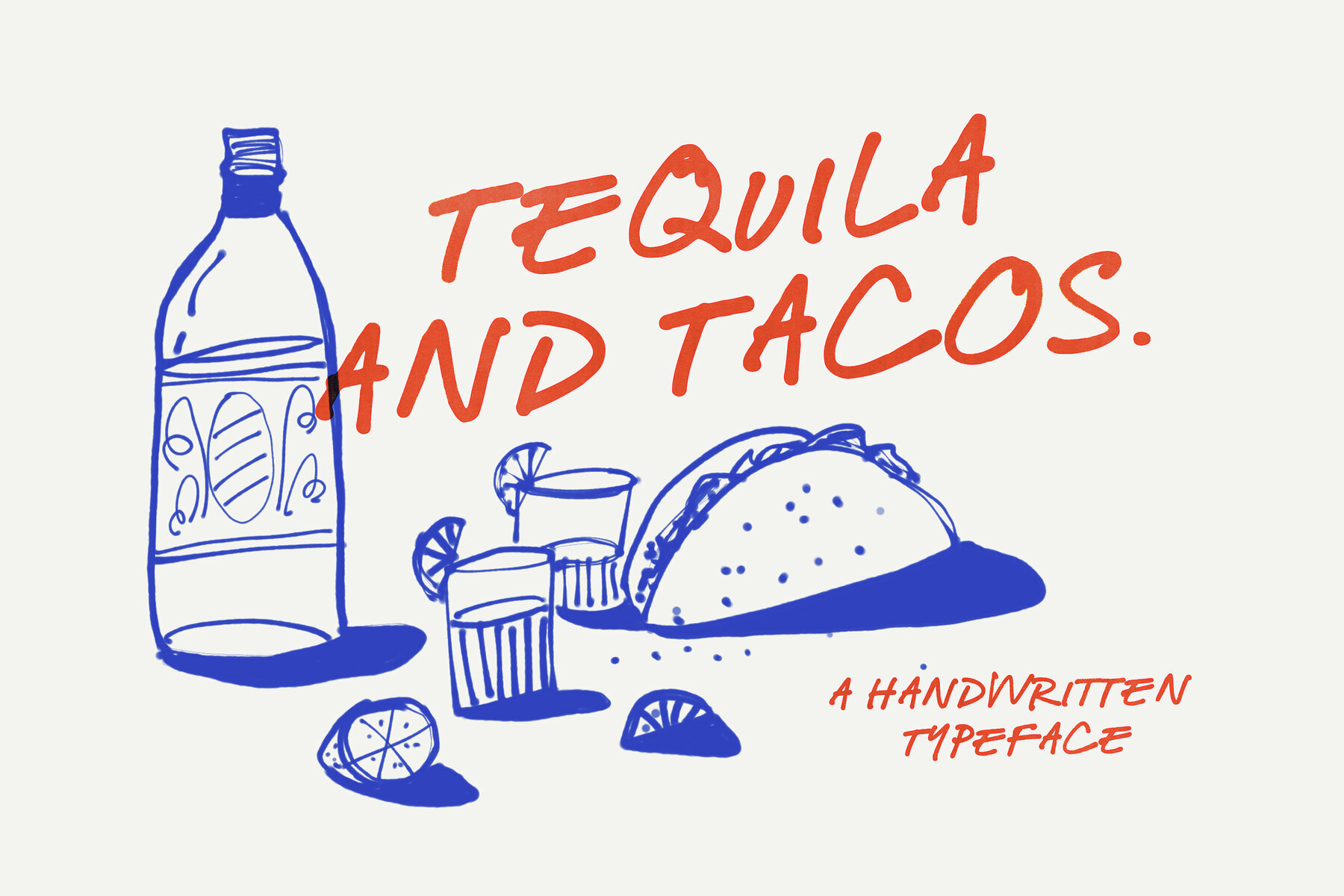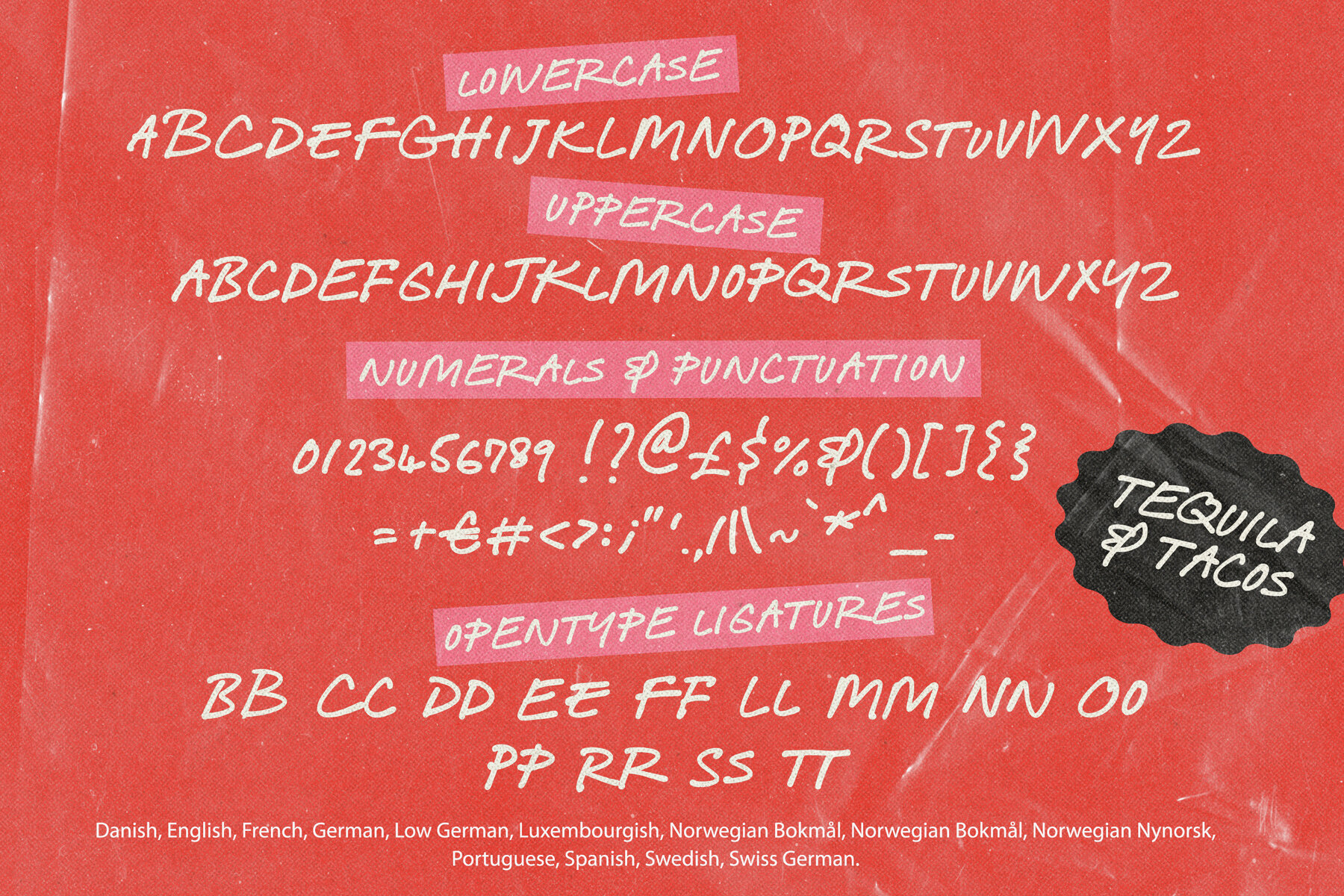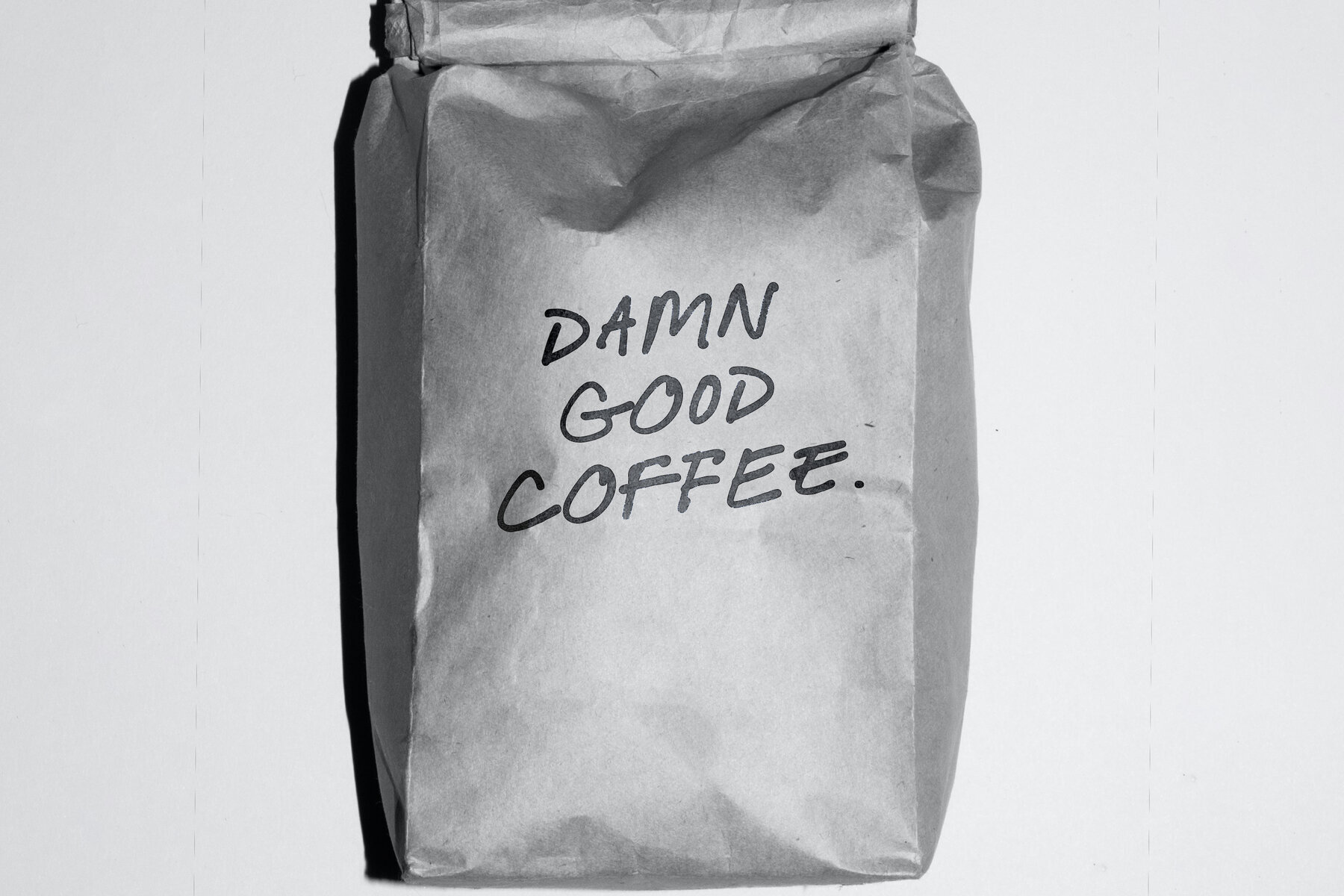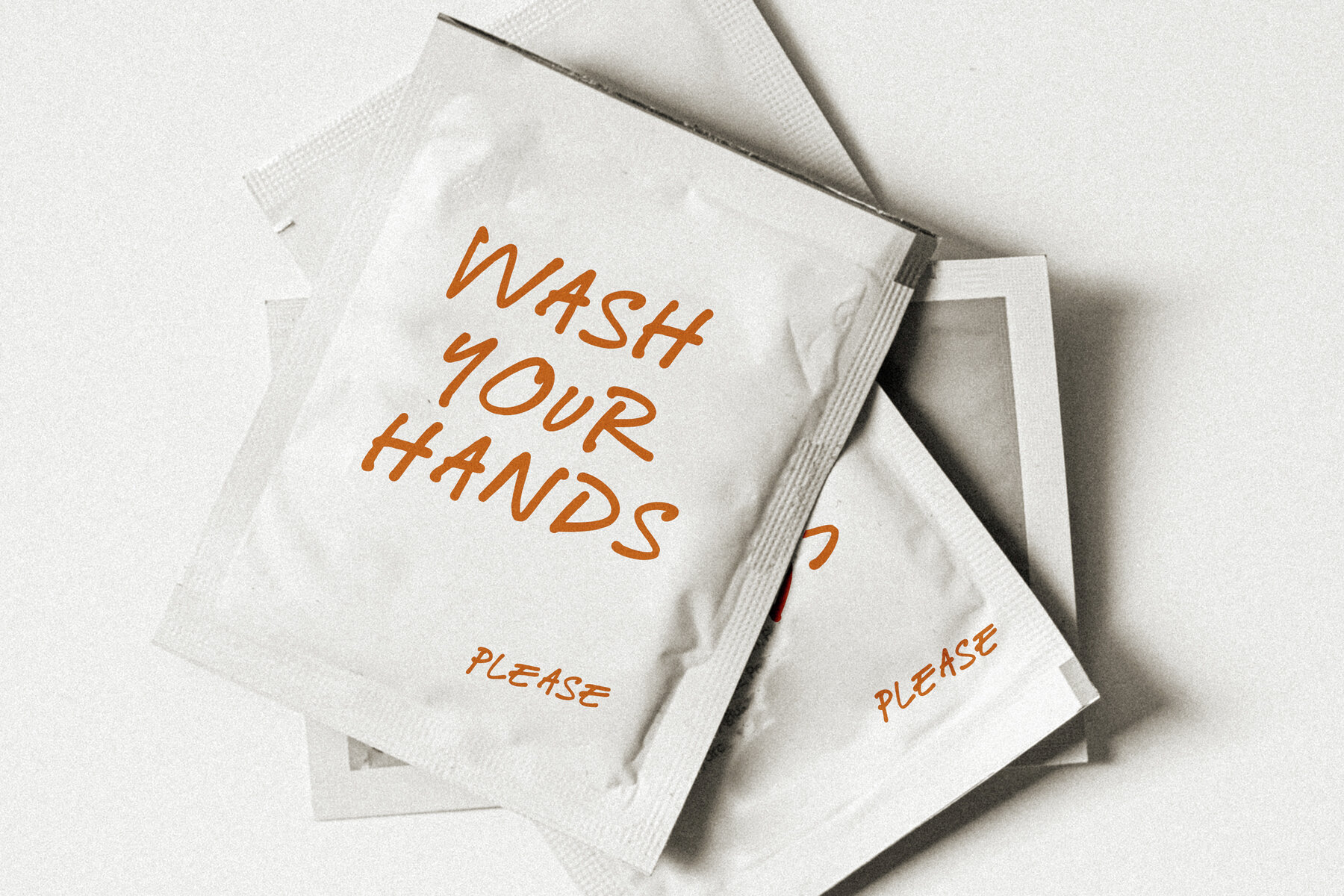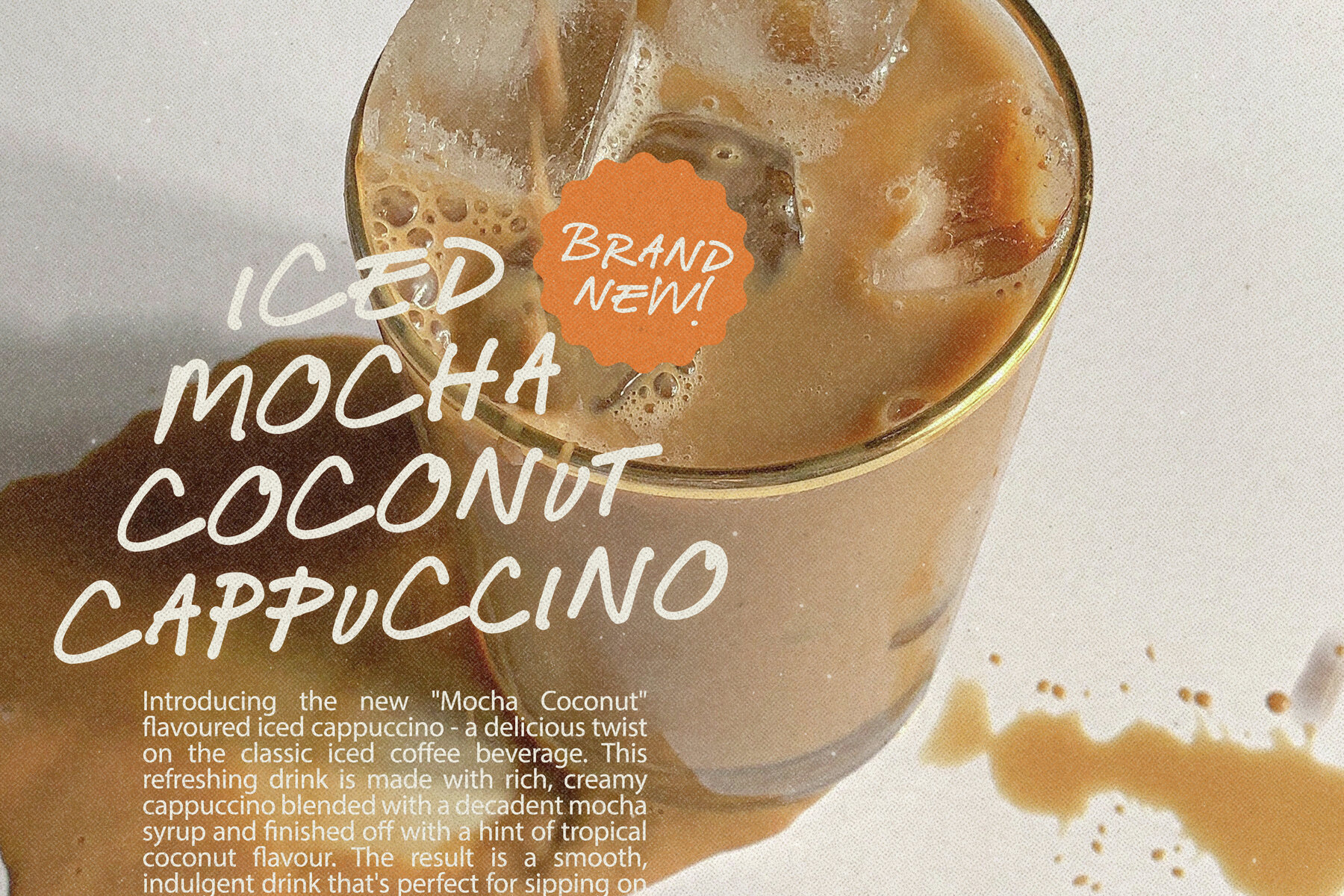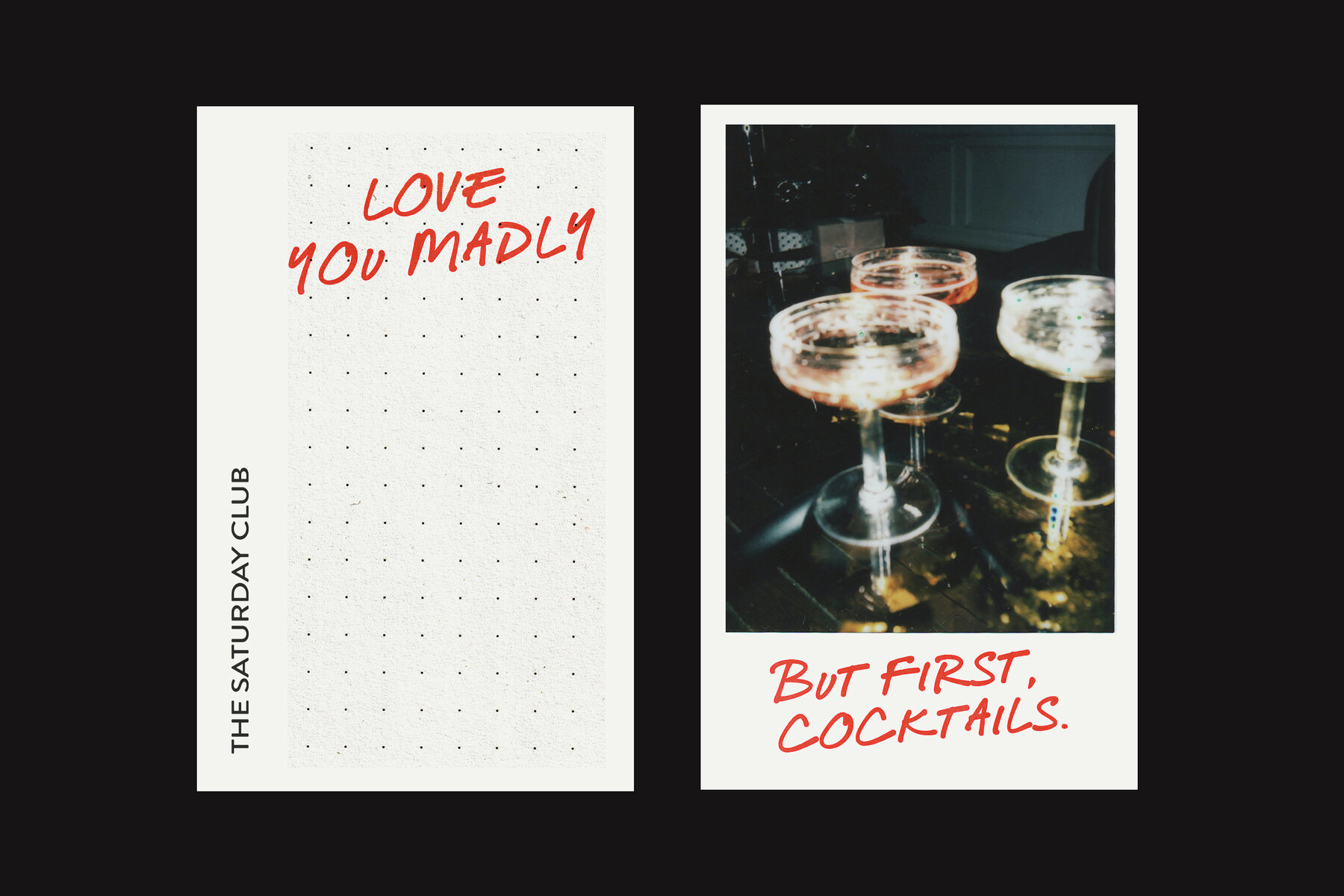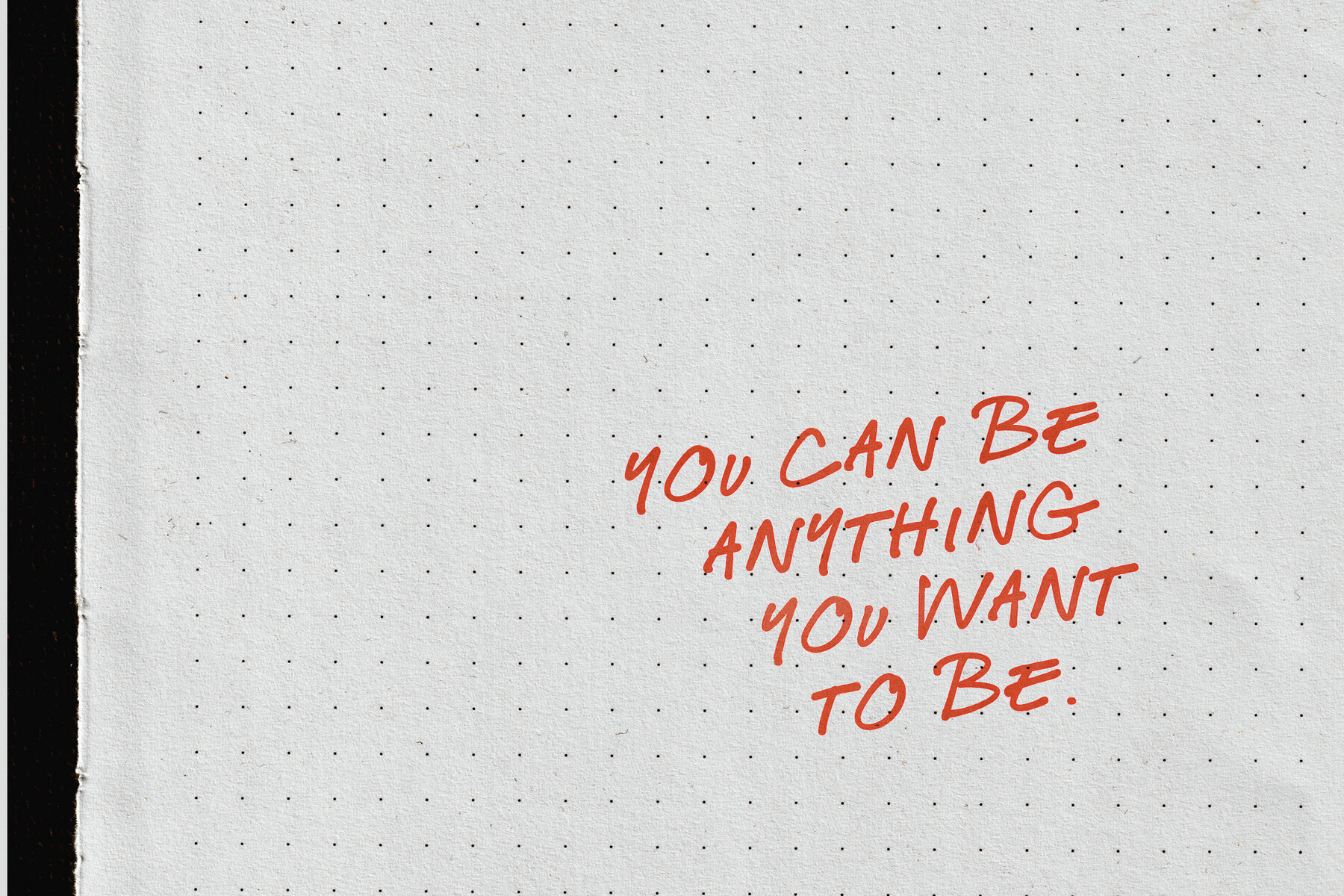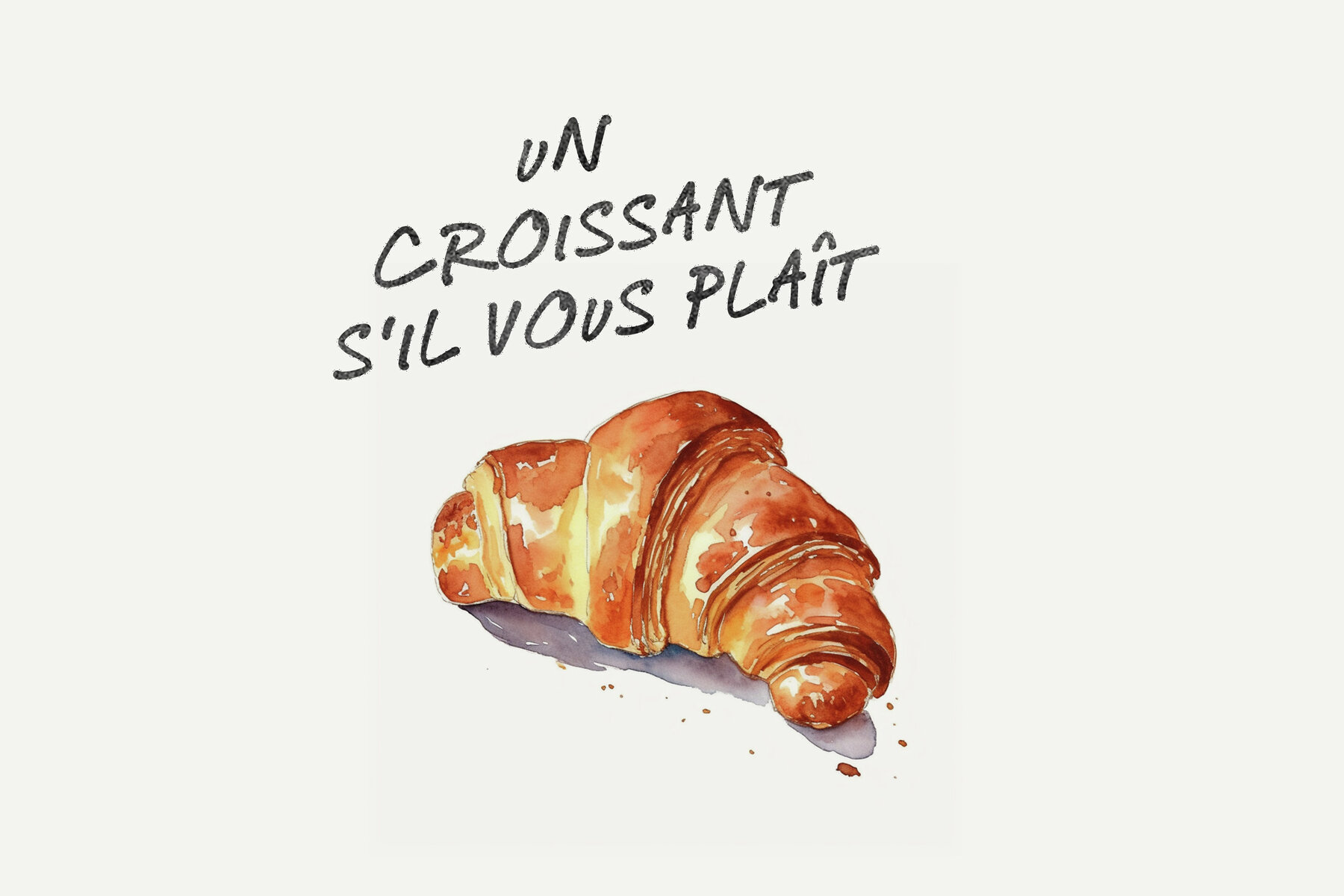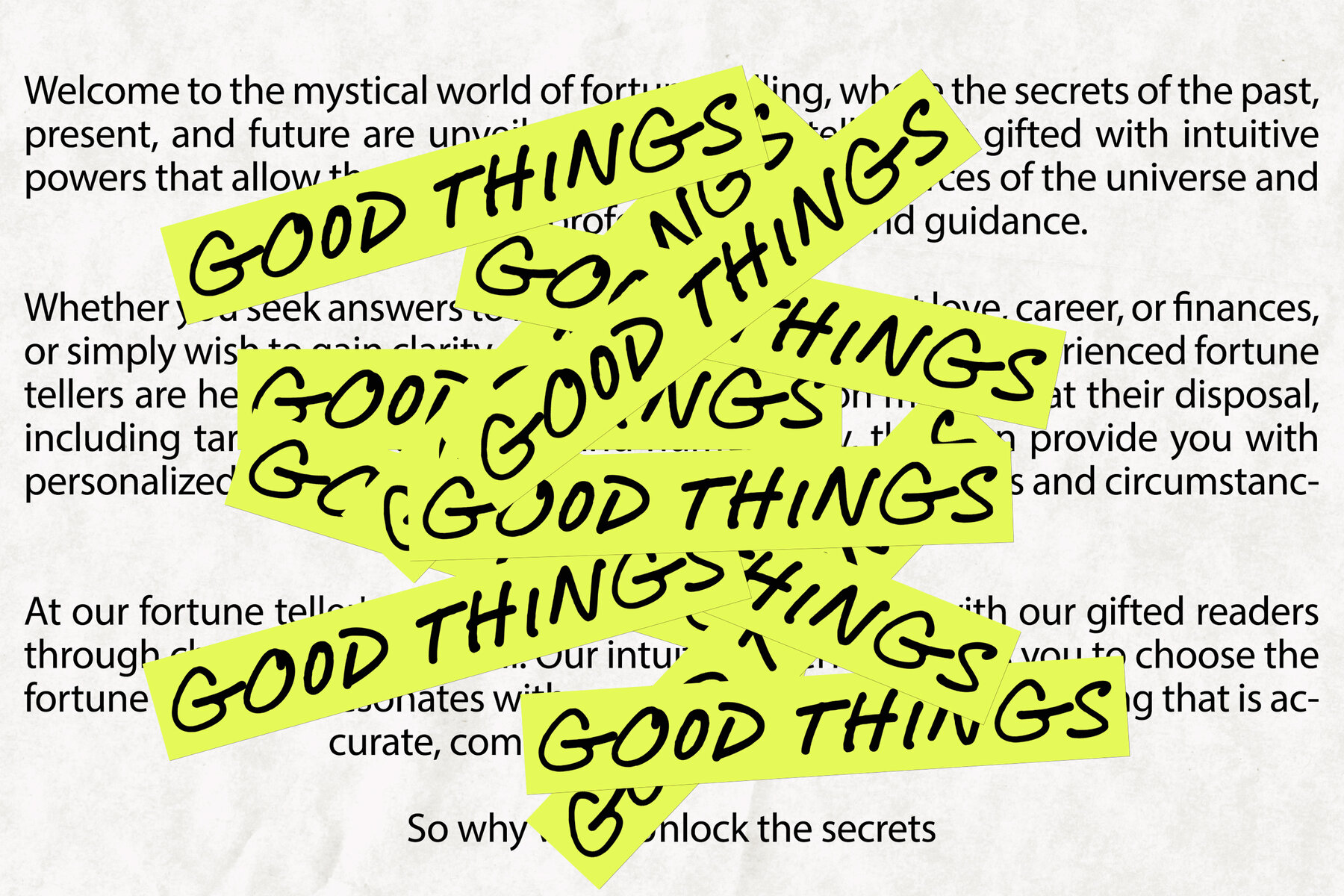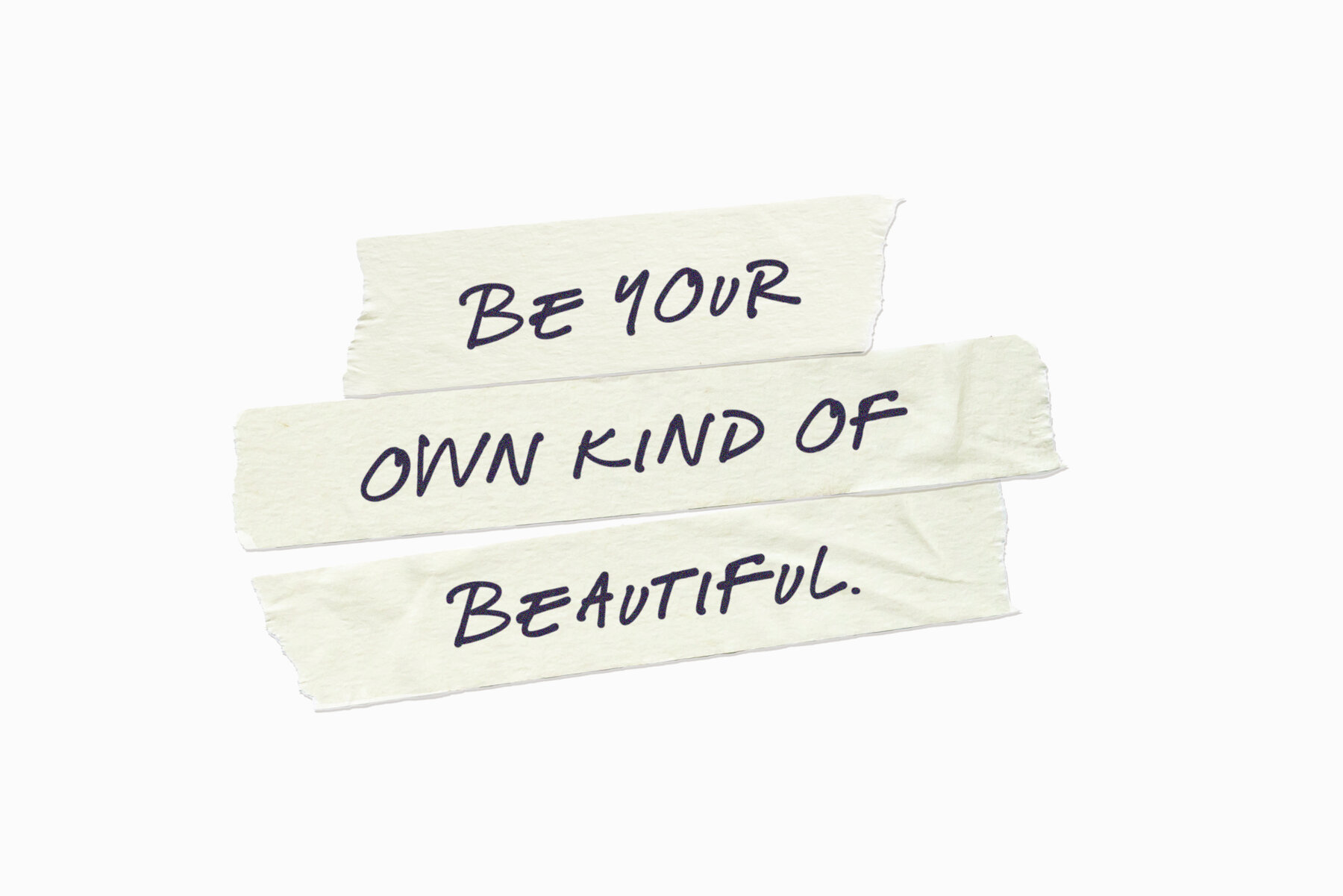
Tequila and Tacos Font
Fulfilling the ongoing needs of the creative industry, Nicky Laatz presents "Tequila and Tacos", an embodiment of casual elegance. Carefully devised to emulate the charm of naturally jotted down notes, this design harmonizes effortlessly with a range of projects, leaving a lasting impression on its viewers. Despite its casual allure, "Tequila and Tacos" is far from carefree. It is a design deliberately crafted to manage serious business assignments while maintaining its affable appeal. Created to bridge the gap between professionalism and spontaneity, this design ensures that every message conveyed holds both gravitas and approachability intact. Key Features of Tequila and Tacos:Introducing "Tequila and Tacos", A Cultivated Evolution in Handwritten Design by Nicky Laatz